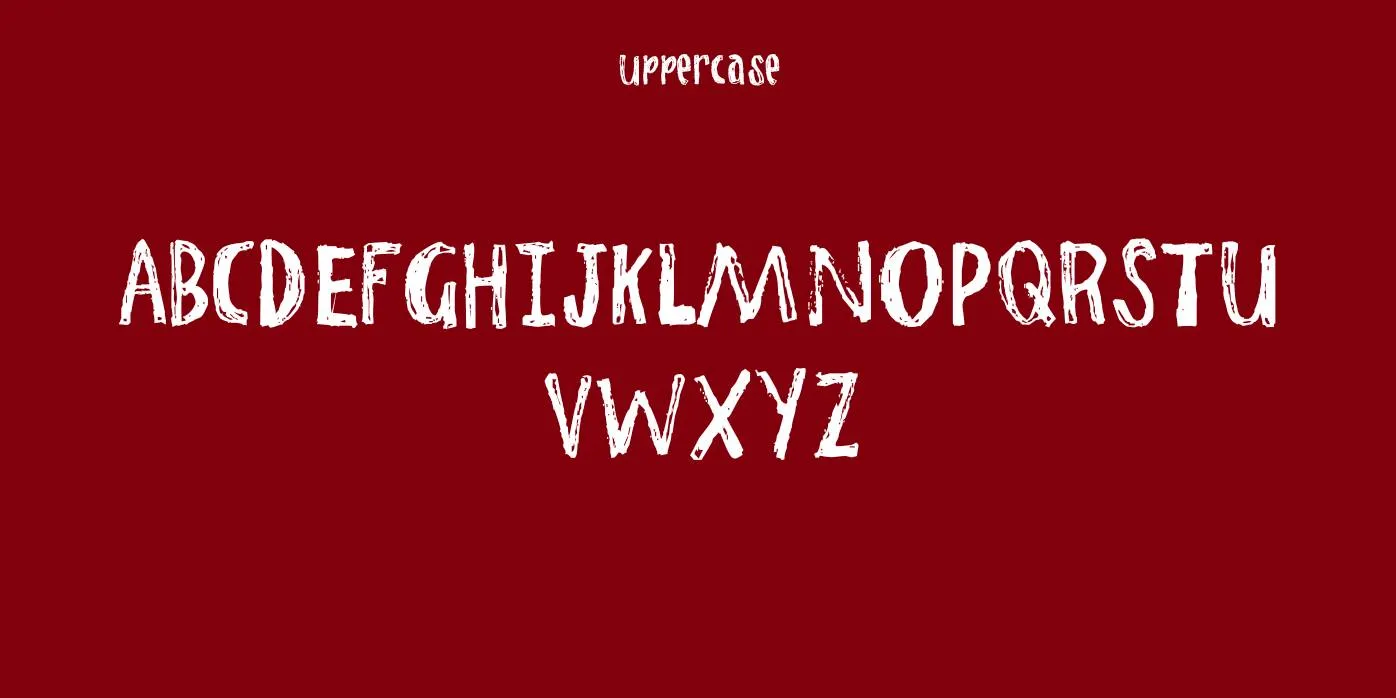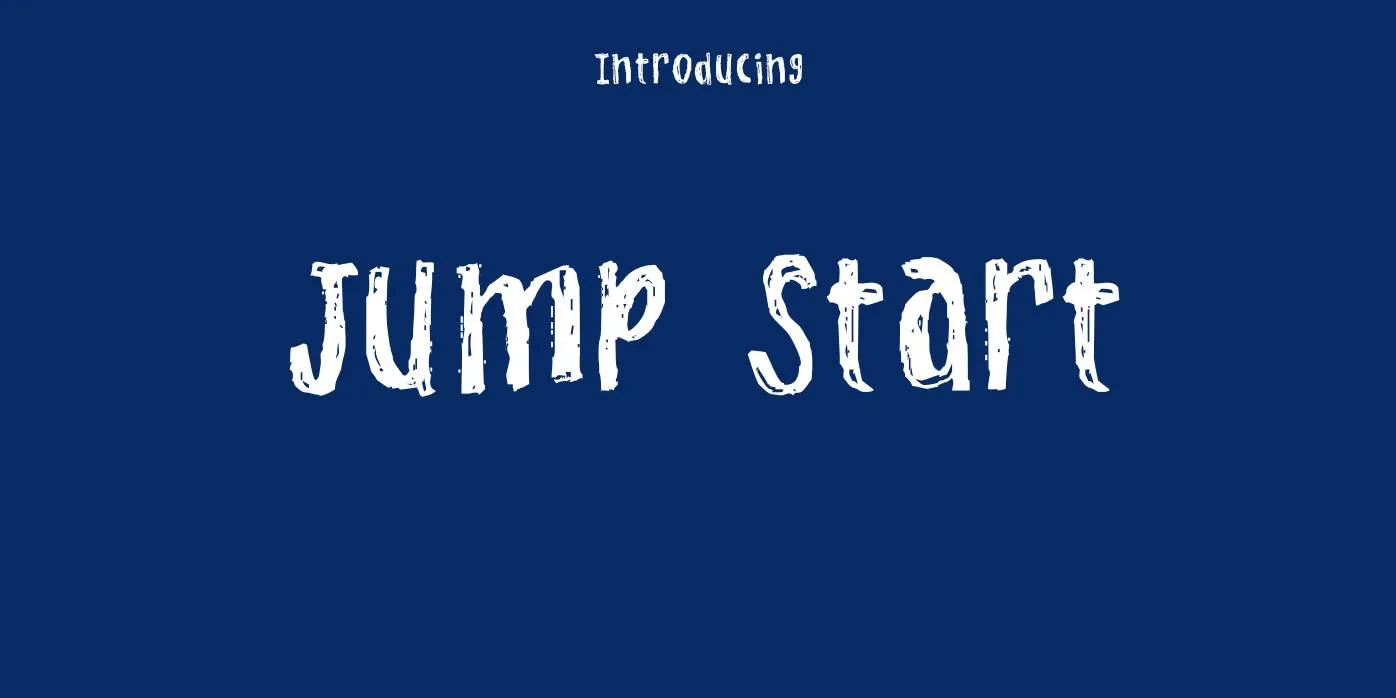
Jump Start Font
The Jump Start Font is an amazing texture that was designed by Typearound. You can utilize it on different types of devices such as PC, Mac, and Android as this font supports file formats TTF and OTF. It was designed in 16-02-1999. It has different features which makes it perfect for different types of projects as it has 69 characters, 70 glyphs, and 1000 units per Em.
The Writing posture followed by this font is upright. You can make both print and digital media projects by using this font. Usage This typeface can be used to design many projects it has lowercase and uppercase letters and punctuations. You can make website designs and graphic designs by using different illustrators and Adobe Photoshop.
To make different types of sketches that can be drawn with a pencil to give an amazing look to your sketching projects. You can use it for home decorations too. For making headings and titles for different types of brands and organizations you can use this font as well. To make product packing and branding purposes you can use this font as well.